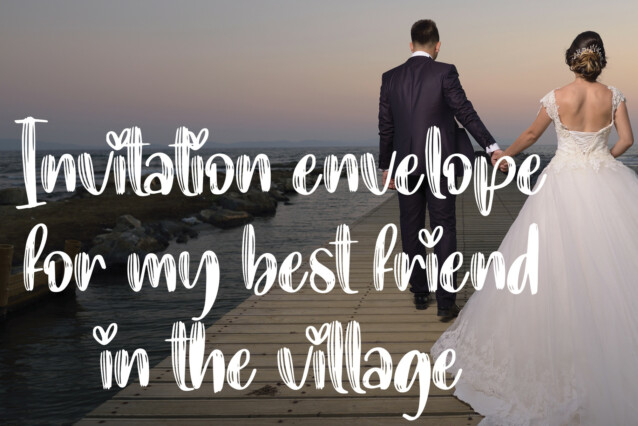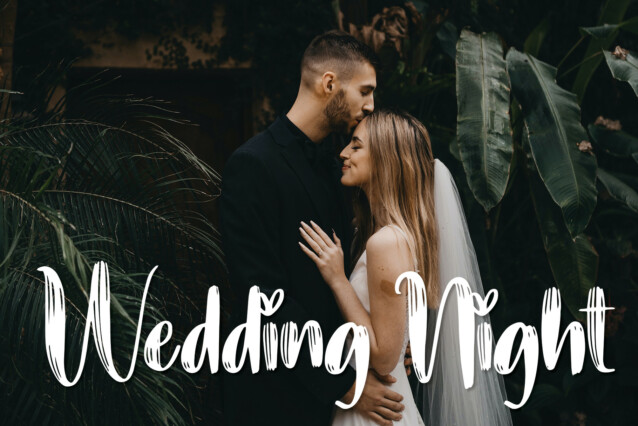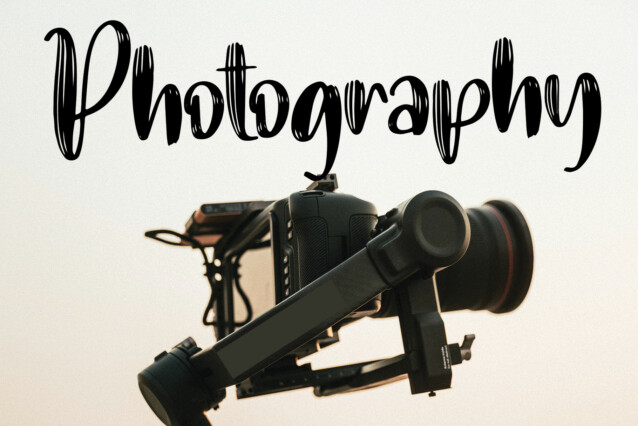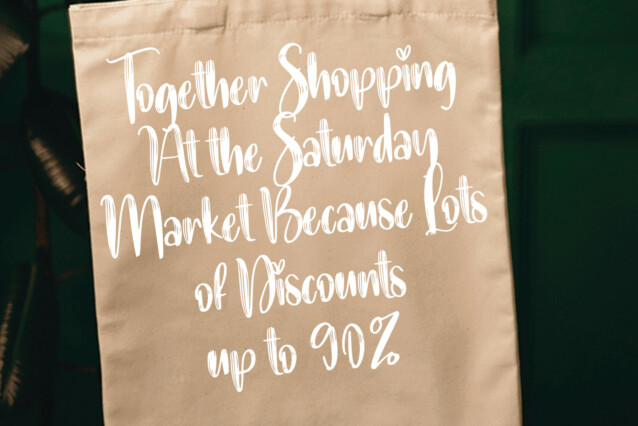
Outside Workspace Script Font
Outside Workspace Script Font is a creative handwritten font. It’s perfectly suitable for wall displays, wedding invitations, social media post logos, advertisements, product packaging, product designs, labels, photography, watermarks, invitations, stationery, and any project that requires taste handwriting.